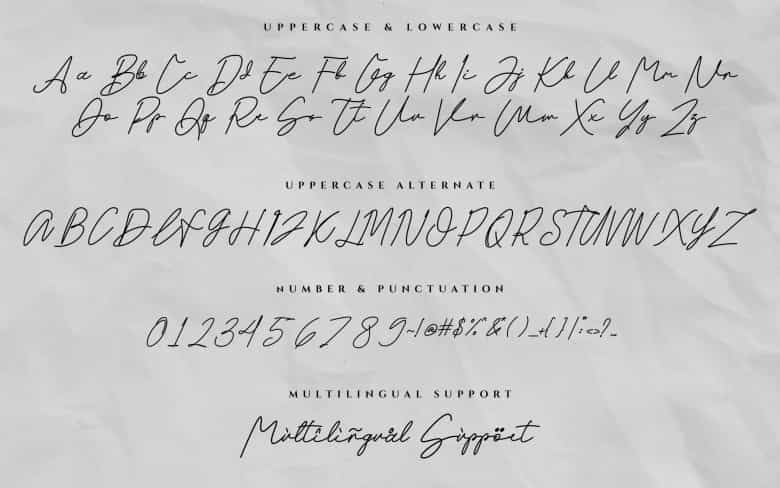
Neo Stone is an elegant and fluid personal signature typeface that is handwritten. The style is PUA encoded, which means that you have access to all the glyphs and swashes ease! It has a different baseline with smooth lines, beautiful alternative glyphs, and stunning glyphs. You will be captivated by the incredibly flexible style and create amazing designs!